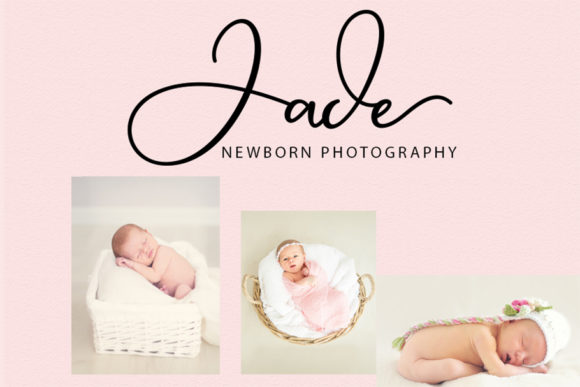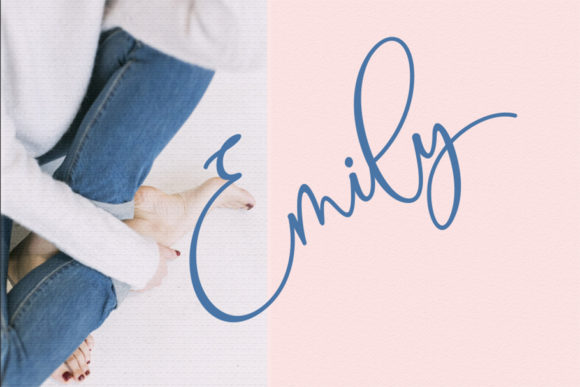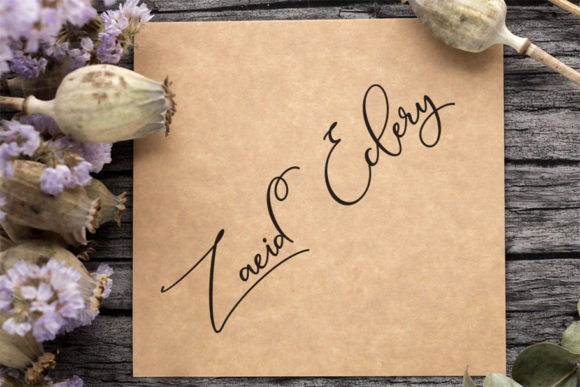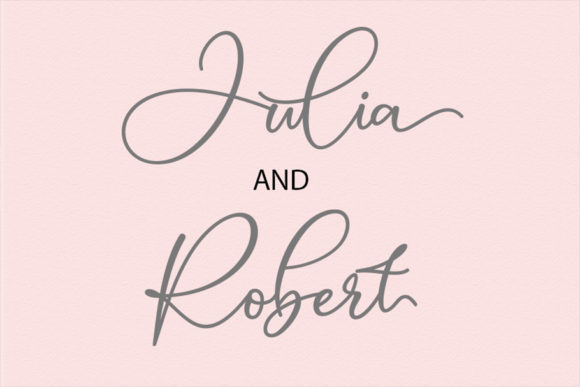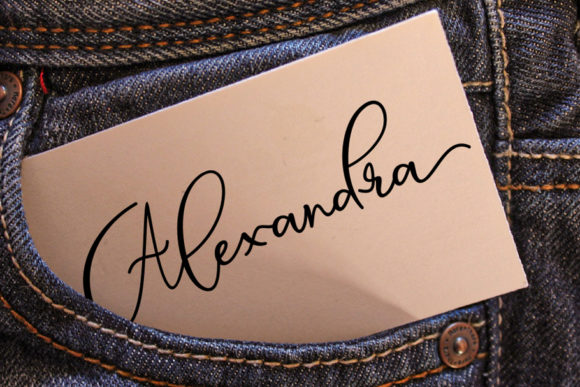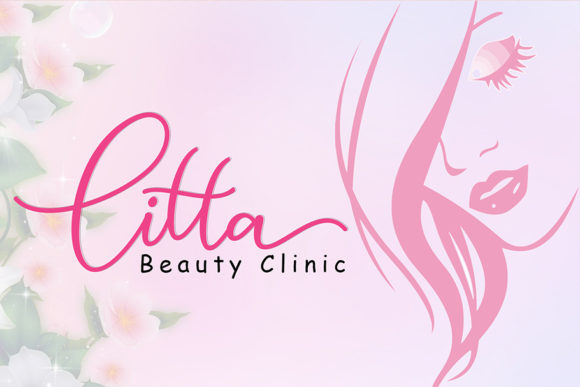
Introducing Animal Font: The Perfect Blend of Class and Modernity
Are you tired of using the same old fonts in your design projects? Look no further than Animal Font, a stunning handwritten font that is sure to become your new favorite. With its exquisite calligraphic influences and contemporary feel, Animal Font is the perfect choice for designers and crafters looking to elevate their work to the highest levels.
The Story Behind Animal Font
Animal Font is a masterfully designed font that boasts a unique blend of classic and modern elements. Its creator has carefully crafted each letter to ensure that it exudes a sense of elegance and sophistication, while still feeling fresh and modern. Whether you’re working on a branding project, a wedding invitation, or a social media graphic, Animal Font is sure to make a lasting impression.
Key Features of Animal Font
- Handwritten with love: Animal Font is a handwritten font that has been carefully crafted to mimic the natural flow of handwriting. Each letter is unique and full of character, making it perfect for adding a personal touch to your designs.
- Classy calligraphic influences: Animal Font draws inspiration from traditional calligraphy, giving it a sense of sophistication and elegance. However, it also has a modern twist that sets it apart from more traditional calligraphic fonts.
- Contemporary and fresh: Unlike some fonts that can feel dated or overused, Animal Font has a distinctly modern feel that will make your designs stand out. Its fresh and playful vibe is perfect for designers who want to create something new and exciting.
- Versatile: Animal Font is incredibly versatile and can be used in a wide range of design projects. Whether you’re working on a logo, a brochure, or a social media graphic, Animal Font is sure to make a great impression.
Why Choose Animal Font?
So why should you choose Animal Font for your next design project? For starters, its unique blend of classic and modern elements makes it a standout font that will set your work apart from the competition. Additionally, its versatility and legibility make it perfect for use in a wide range of design projects, from branding and advertising to packaging and more.
Using Animal Font in Your Design Projects
Tips for Getting the Most Out of Animal Font
- Experiment with different sizes and colors: Animal Font looks great in a variety of sizes and colors, so don’t be afraid to experiment and find the combination that works best for your design.
- Pair it with other fonts: Animal Font pairs well with a variety of other fonts, so try combining it with some of your other favorite fonts to create a unique and interesting design.
- Use it to add a personal touch: Animal Font is perfect for adding a personal touch to your designs. Try using it to create a custom logo or to add a handwritten element to your work.
Animal Font is a truly exquisite handwritten font that is sure to become a favorite among designers and crafters. Its unique blend of classy calligraphic influences and modern freshness makes it the perfect choice for a wide range of design projects. Whether you’re working on a branding project, a wedding invitation, or a social media graphic, Animal Font is sure to make a lasting impression. So why wait? Download Animal Font today and take your designs to the highest levels!